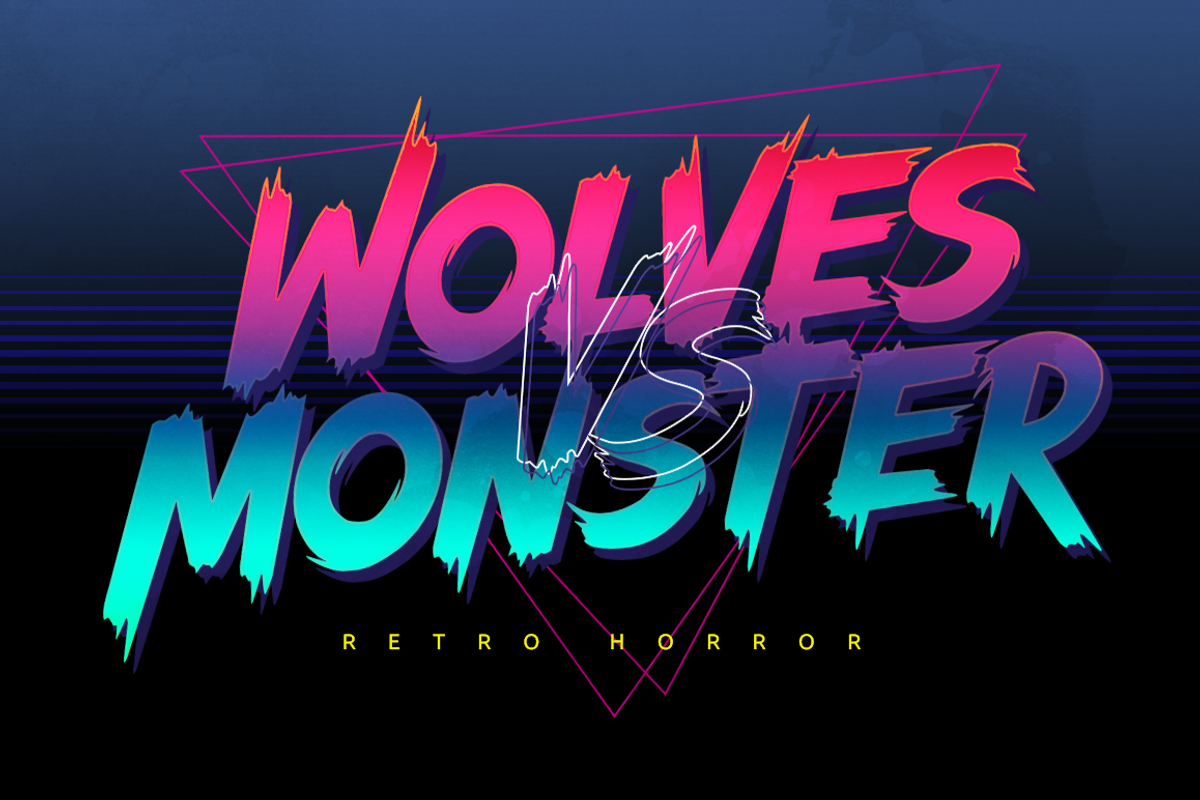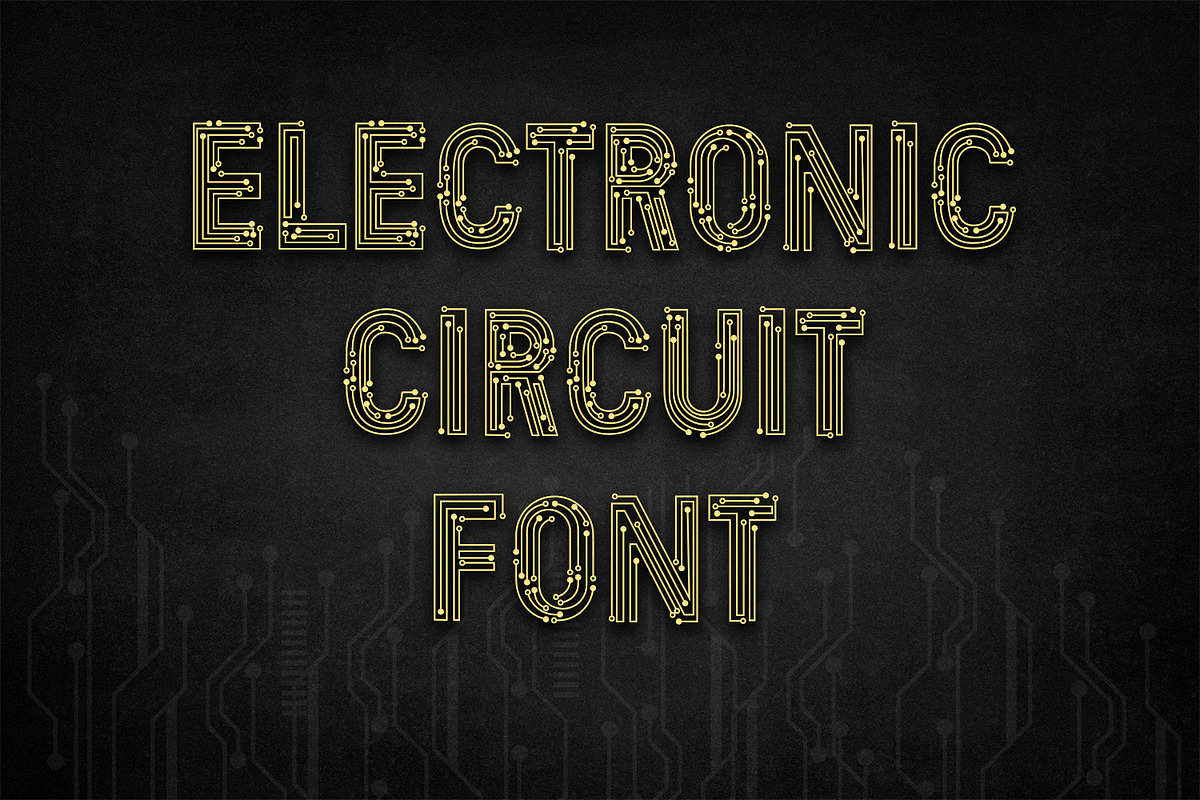
11+ Best Lightning Fonts: Energize Your Creations with Thunderous Typography”
Looking to give your designs the electrifying essence of a lightning bolt? It’s a powerful symbol of strength and volatility, and with the best lightning fonts, you can bring this energy to your creations. But finding the perfect lightning font can be challenging.
That’s why we’ve curated a list of the 15 best lightning fonts to help you on your quest. Whether you’re working on a project that needs a commanding aesthetic, or simply want to add some dynamic energy to your designs, our carefully selected fonts will ignite your creative journey. So choose a font from our list and watch your projects come to life with the power of a lightning bolt.
What Are The Best Lightning Fonts?
When it comes to design, the choice of fonts can be a game-changer. Just like tattoo number fonts can give your ink a unique character, lightning fonts can add a special touch to your projects by illuminating your text in style. These fonts come in a wide array of styles, and selecting the right one can make a significant difference in the visual impact of your work.
Why Choose the Best Lightning Fonts?
When it comes to design and typography, selecting the best lightning fonts is a decision that holds immense significance. But why should you take the time to carefully choose the right lightning font for your project? Let’s delve into the compelling reasons that make this choice essential.
1. Illuminating Impact: Lightning fonts possess a unique ability to captivate and draw attention. Just like a well-placed tattoo number font can turn your body art into a statement piece, the right lightning font can make your text designs truly shine. Whether you’re creating signage, designing a website, or working on any design project, a striking lightning font can leave a lasting impression on your audience.
2. Expressive Character: Much like tattoo number fonts, lightning fonts exude character and personality. Your choice of font can convey emotions, moods, and themes that go beyond the words themselves. Whether you want to evoke a sense of nostalgia with a vintage lightning font or convey modernity with a sleek, minimalist choice, your font can speak volumes about your style and preferences.
3. Versatility in Style: One of the most compelling reasons to choose the best lightning fonts is their remarkable versatility. Just as tattoo number fonts can range from traditional to contemporary, lightning fonts come in a wide array of styles. Whether you’re going for a classic, timeless look or a cutting-edge, futuristic design, there’s a lightning font that perfectly aligns with your creative vision.
4. Abundance of Options: Thanks to their popularity in the world of design, you’ll find a wealth of exemplary lightning fonts readily available online. Whether you’re browsing through font libraries or seeking inspiration from design communities, you won’t have trouble finding fonts that match your project’s requirements. The abundance of options ensures that you can easily find the perfect lightning font for your specific needs.
So, if you’re on a quest to make your text designs truly captivating and unforgettable, look no further than the world of lightning fonts. Just as choosing the right tattoo number font enhances your body art, selecting the best lightning font can illuminate your design projects with style and substance. It’s a decision that promises to leave a lasting impression on your audience and make your work stand out in the world of design. What are some of your favorite lightning fonts? Feel free to share your thoughts and preferences in the comments below!
1. Thunderion – Powerful Display Font
Thunderion – Powerful Display Font. Image Credit: Envato Elements
When it comes to creating eye-catching content, the choice of font can make all the difference. Introducing Thunderion, the ultimate lightning font that will electrify your designs and give your content a powerful boost.
Thunderion is not your ordinary typeface – it’s a striking display font meticulously crafted to capture the electrifying energy of thunderstorms. Each character in this unique font is adorned with a dynamic thunder accent, adding a dramatic and impactful effect to your text.